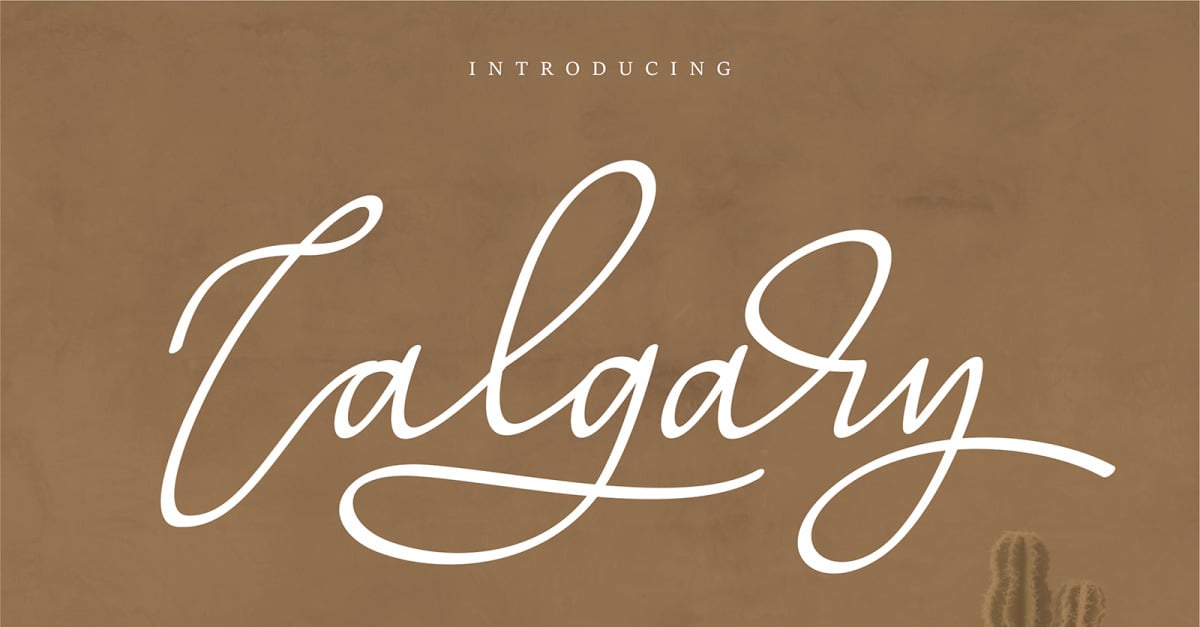
Calgary | A Stylish Cursive Font
**Calgary | A Stylish Script Font** with a calligraphy style, So beautiful on invitation like greeting cards, branding materials, business cards, quotes, posters, and more!